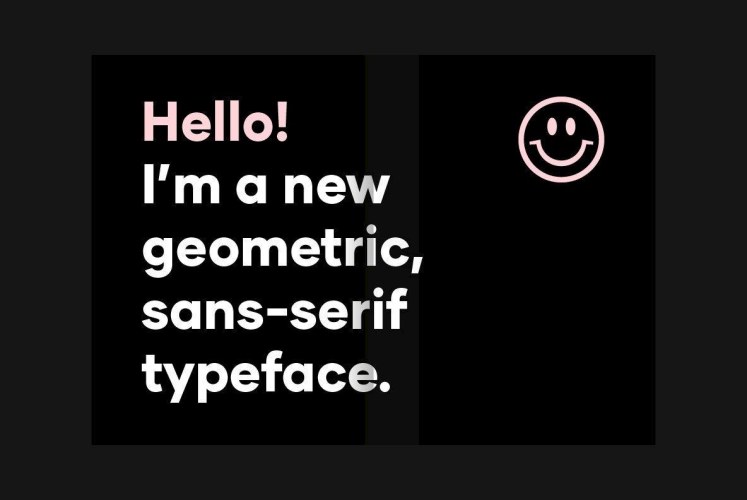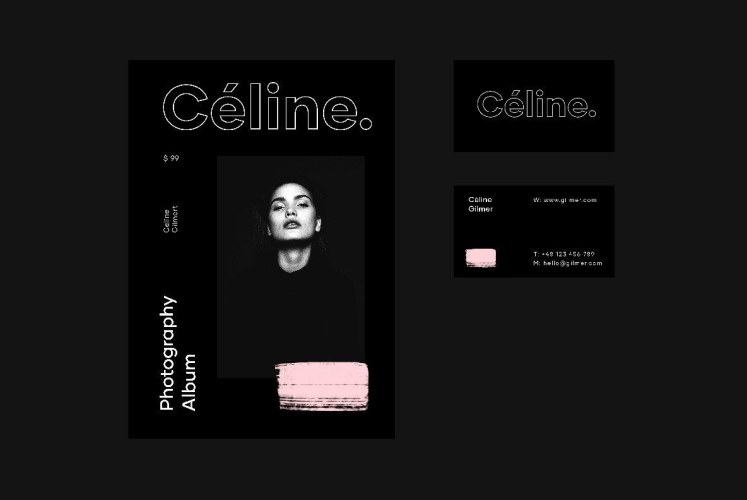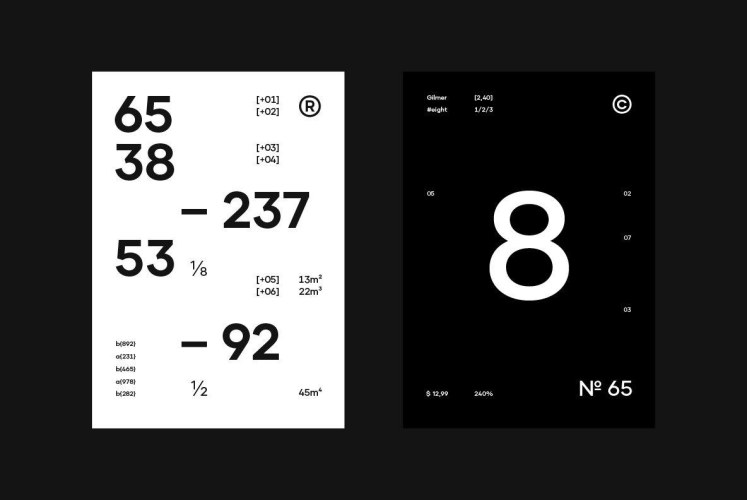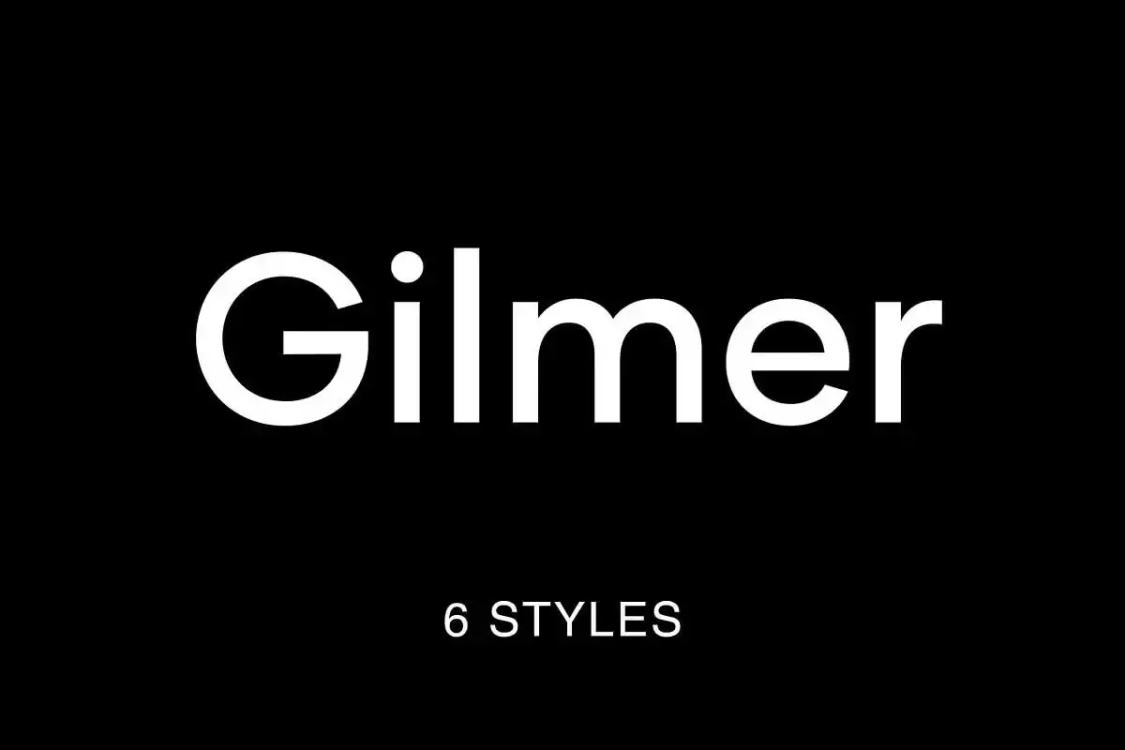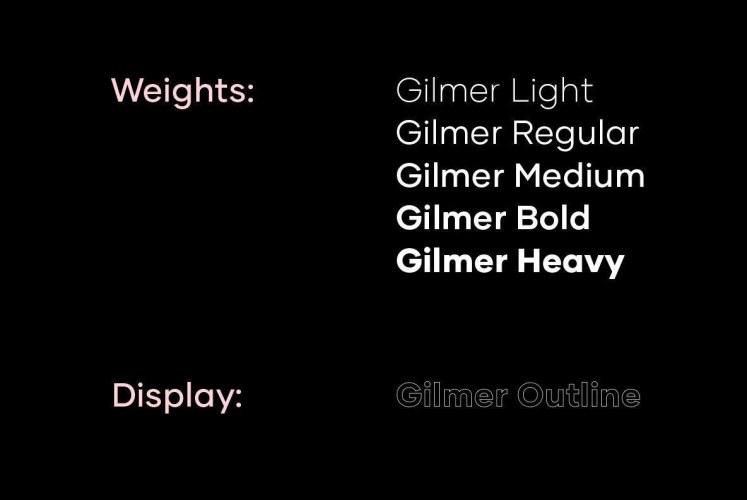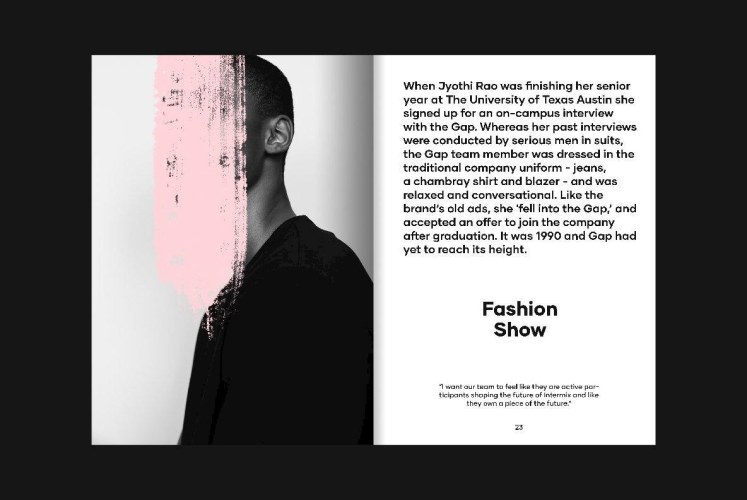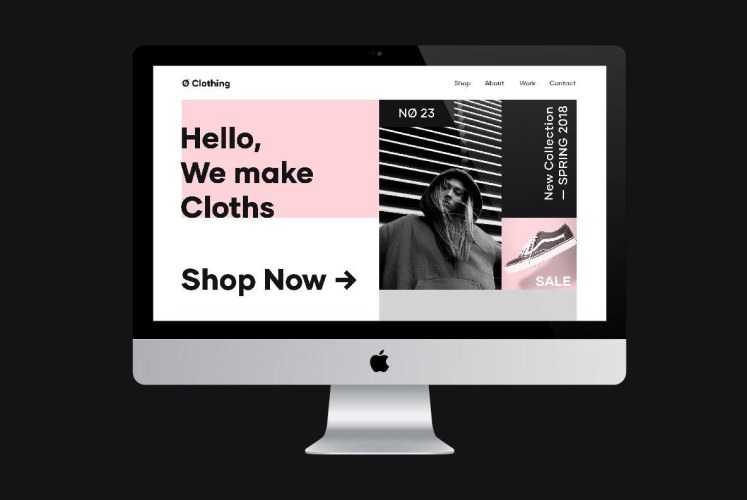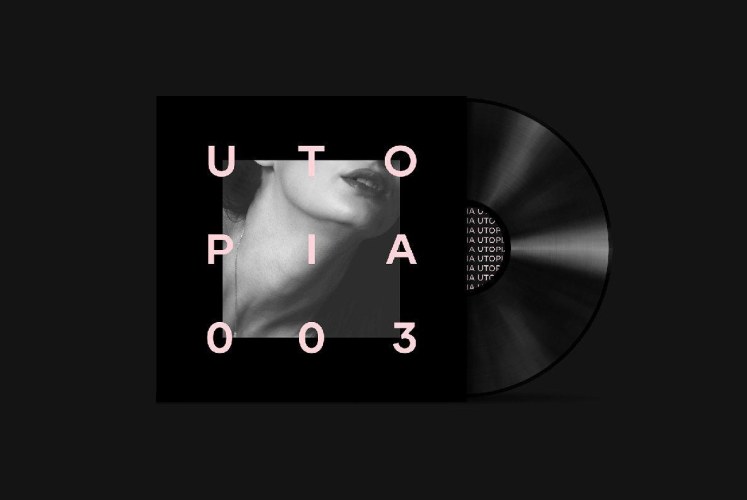
Gilmer Font
Gilmer is a fresh, geometric, sans-serif font family inspired by iconic typefaces like Futura and Avant Garde. Gilmer has a considerable x-height value, geometrical letterforms, sharp edges, and minimal stroke contrast, similar to the neo-grotesque fonts from the 20th century. The typeface is versatile and can be successfully used in magazines, posters, branding, websites, etc.*
Where Gilmer Font works best
Gilmer Font stays legible at small sizes, which makes it a strong choice for navigation, buttons and dashboards in web design and app interfaces.
Clean sans serifs like Gilmer Font are the default language of SaaS, fintech and product branding.
What is Gilmer Font good for?